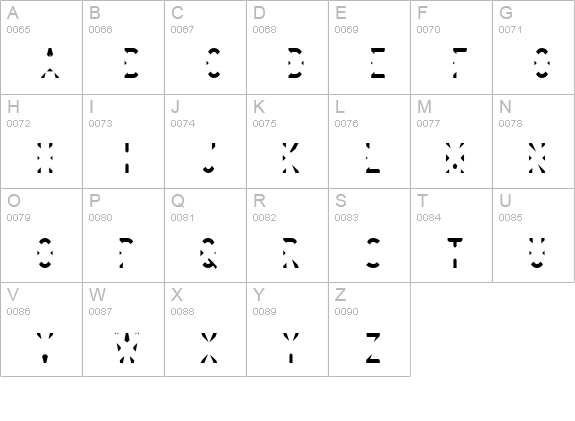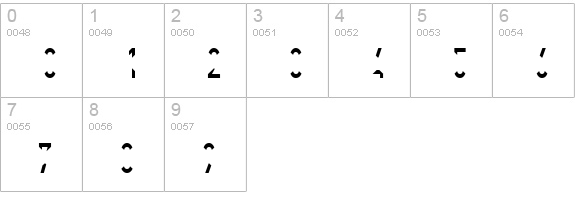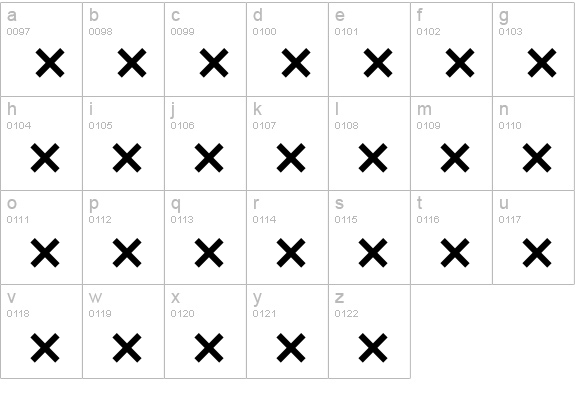
Deleted Font Details
Deleted font is a modern and stylish typeface perfect for giving your designs a contemporary edge. With its sleek lines and sharp angles, this font exudes a sense of sophistication and elegance. Whether you're creating a logo, branding materials, or social media graphics, Deleted font is sure to make a statement. The best part? Deleted font is completely free to download at FontsMarket.com. That's right, you can elevate your designs with this stunning font without spending a dime. Don't miss out on the opportunity to add Deleted font to your collection and take your projects to the next level. Download it today and start creating beautiful and professional-looking designs effortlessly.